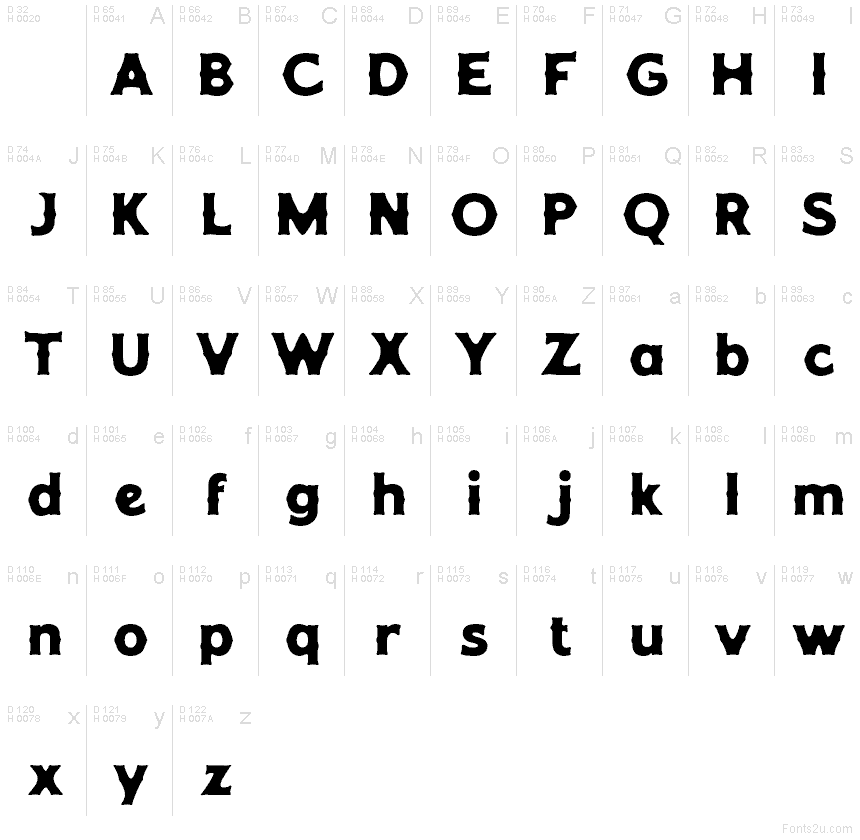
CSBertaDrawn-Regular Demo
CS Berta Drawn font by Craft Supply Co. is a vintage display font with a quirky personality and approachable aesthetic. It has a retro vibe, sporting fun and rounded bold slab serif letters. Its playful look fits well in relaxed projects where the focus can be made on readability and visual appeal.